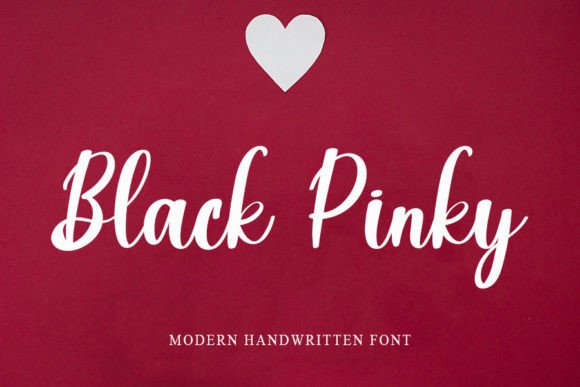
Introduce a script font that exudes elegance and charm – Black Pinky Font! Crafted by the ingenious minds at PiPi Creative, this font is tailored for your educational endeavors, making it the perfect choice for any school project.
Black Pinky Font's exquisite handwritten style will captivate your audience with its delicate strokes and graceful curves. Its timeless appeal transcends trends, ensuring your designs remain captivating for years to come. Unleash your creativity and craft stunning projects that will leave an unforgettable mark.
Immerse yourself in the world of Black Pinky Font, where every letter dances with an enchanting allure. Its inherent beauty will elevate your designs, adding a touch of sophistication and style that will turn heads. Let your imagination soar as you create eye-catching posters, captivating presentations, or personalized school assignments that will inspire and amaze.
Black Pinky Font is not just a tool for writing; it's an artistic expression that will transform your words into works of art. Embrace the elegance and charm of this beautiful script font, and let your creativity flourish in the realm of educational excellence.